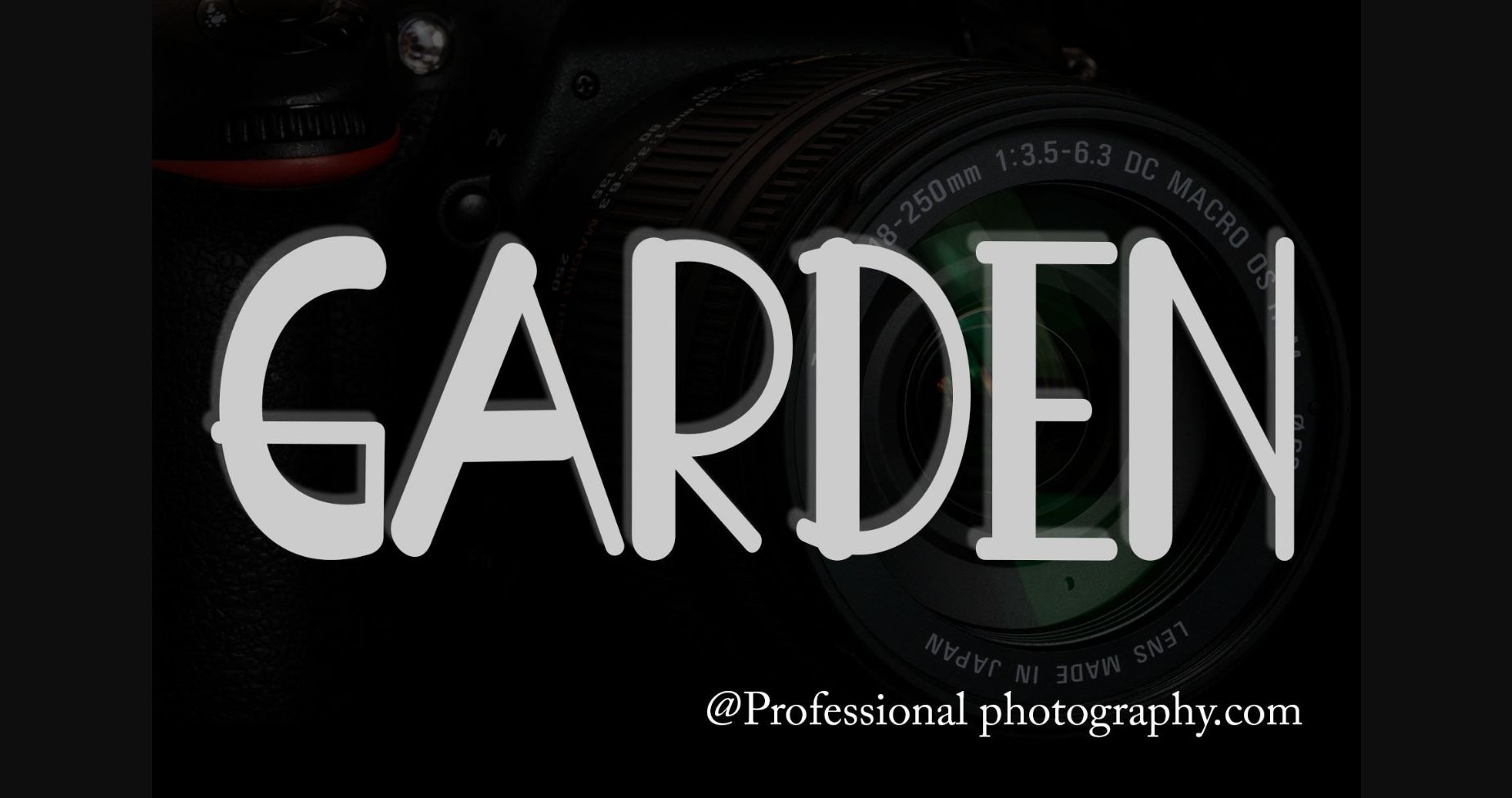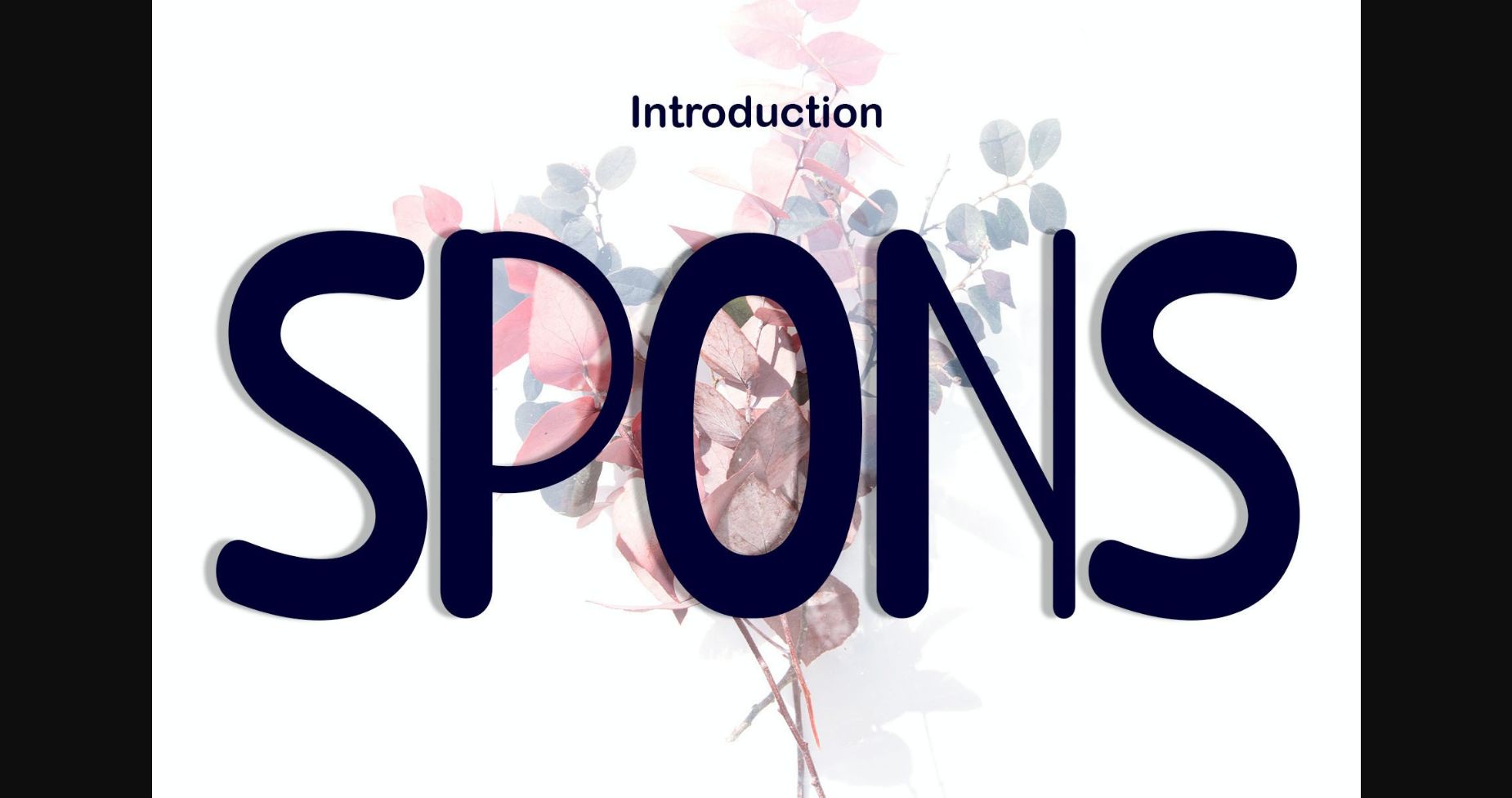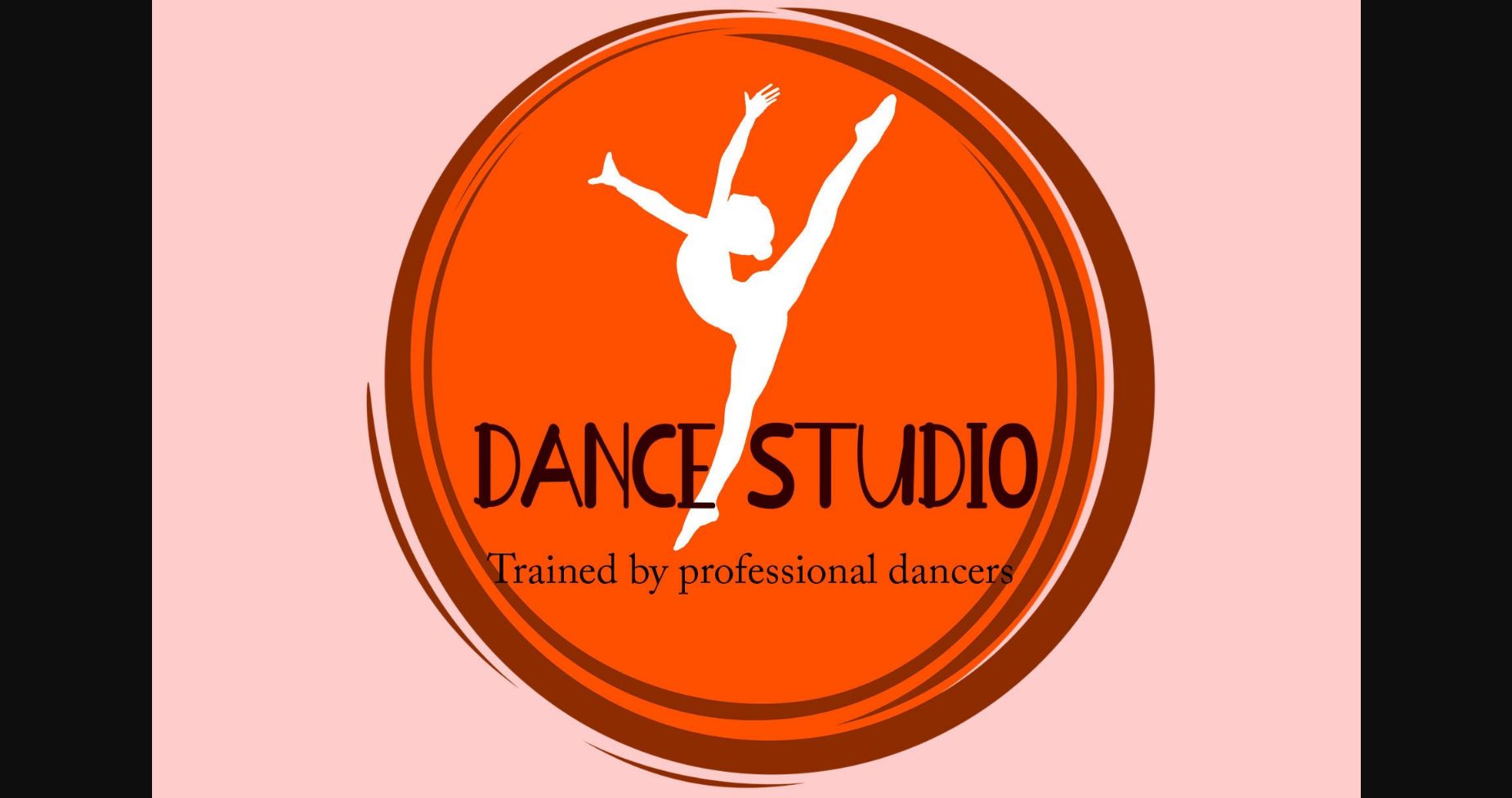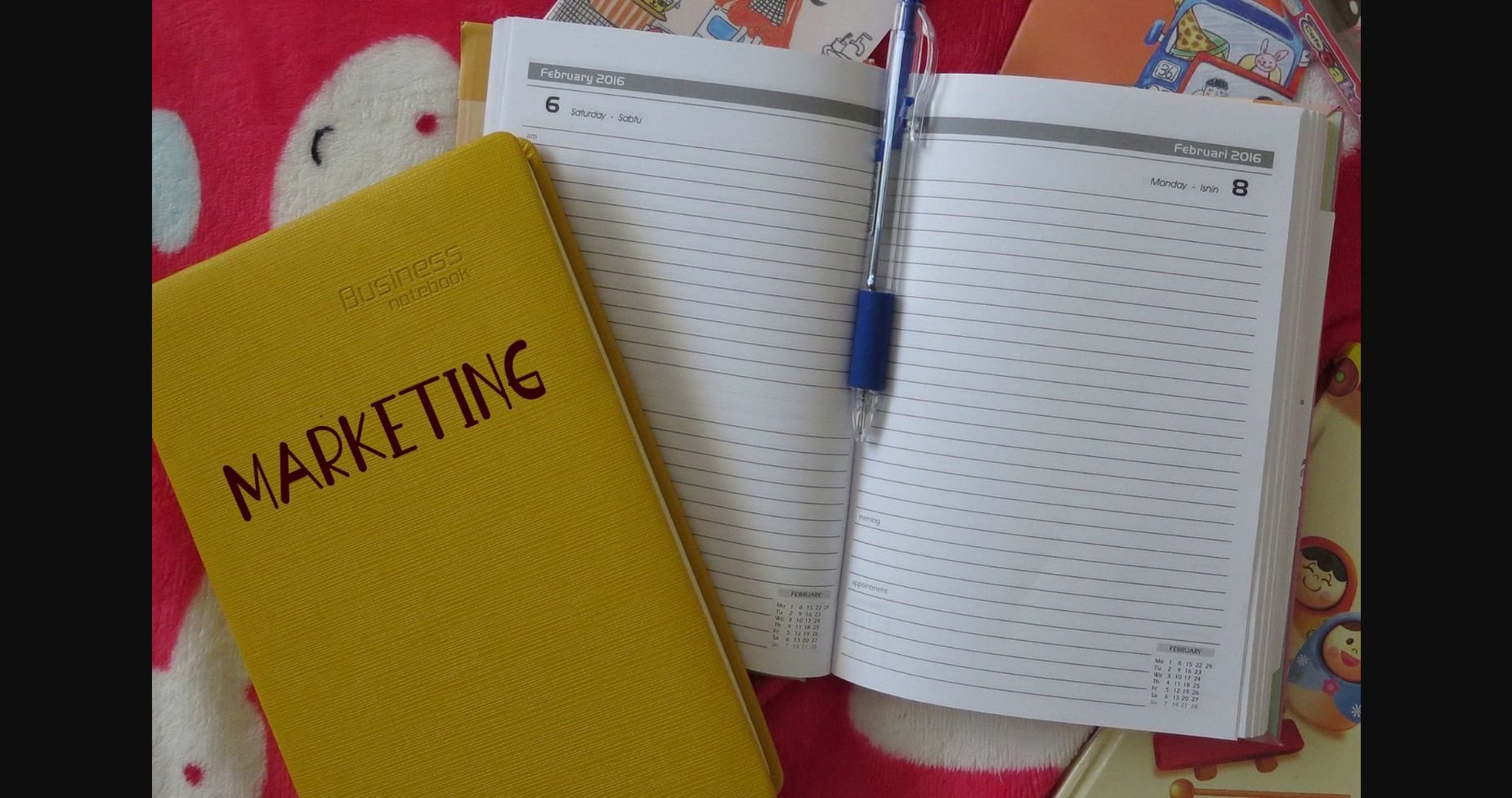
About Spons Font
Spons is a stylish sans serif font with a contemporary feel and perfect form, inspired by a timeless classic calligraphy. Balanced with perfect thickness and variety, this font is designed to enhance the beauty of your projects.